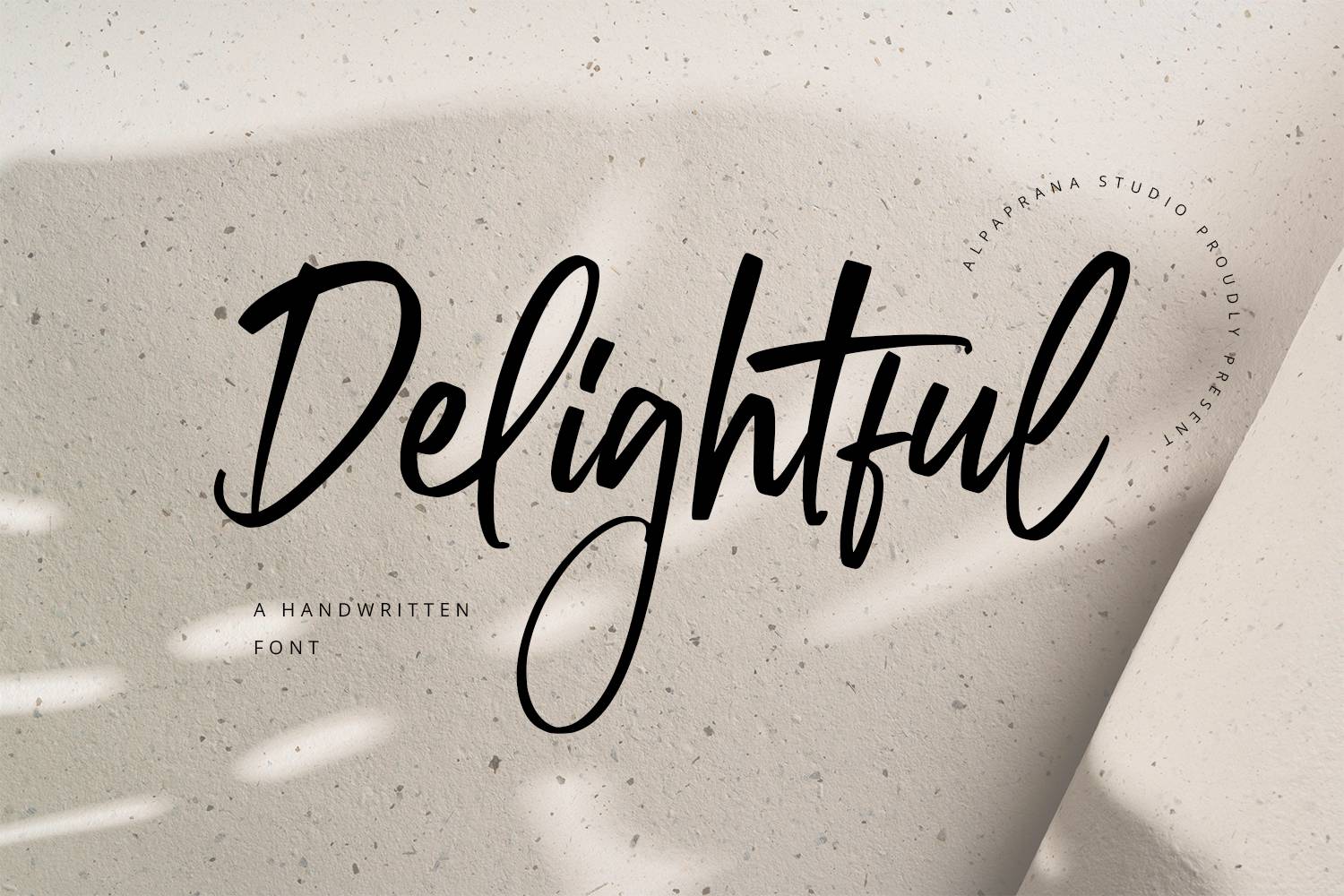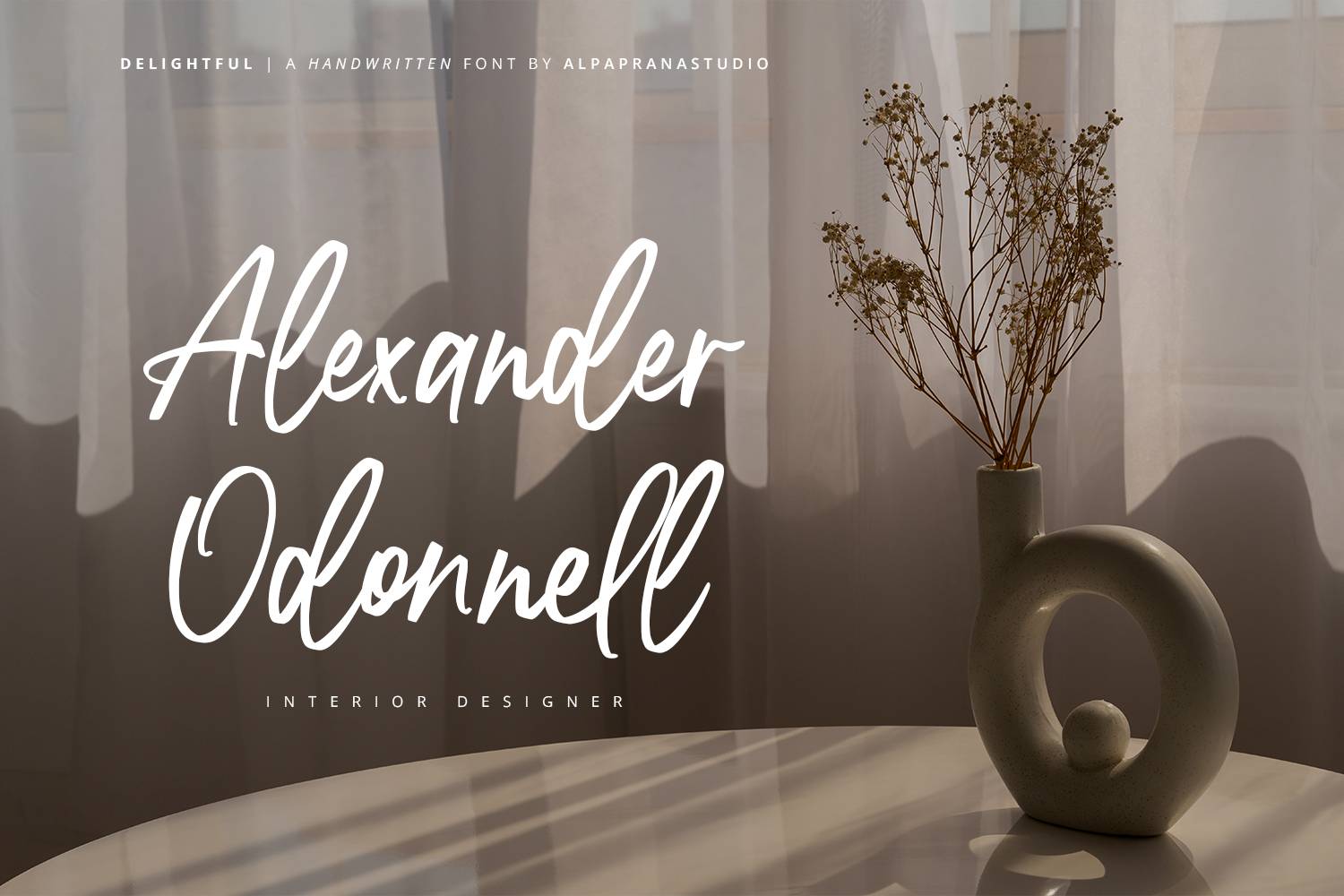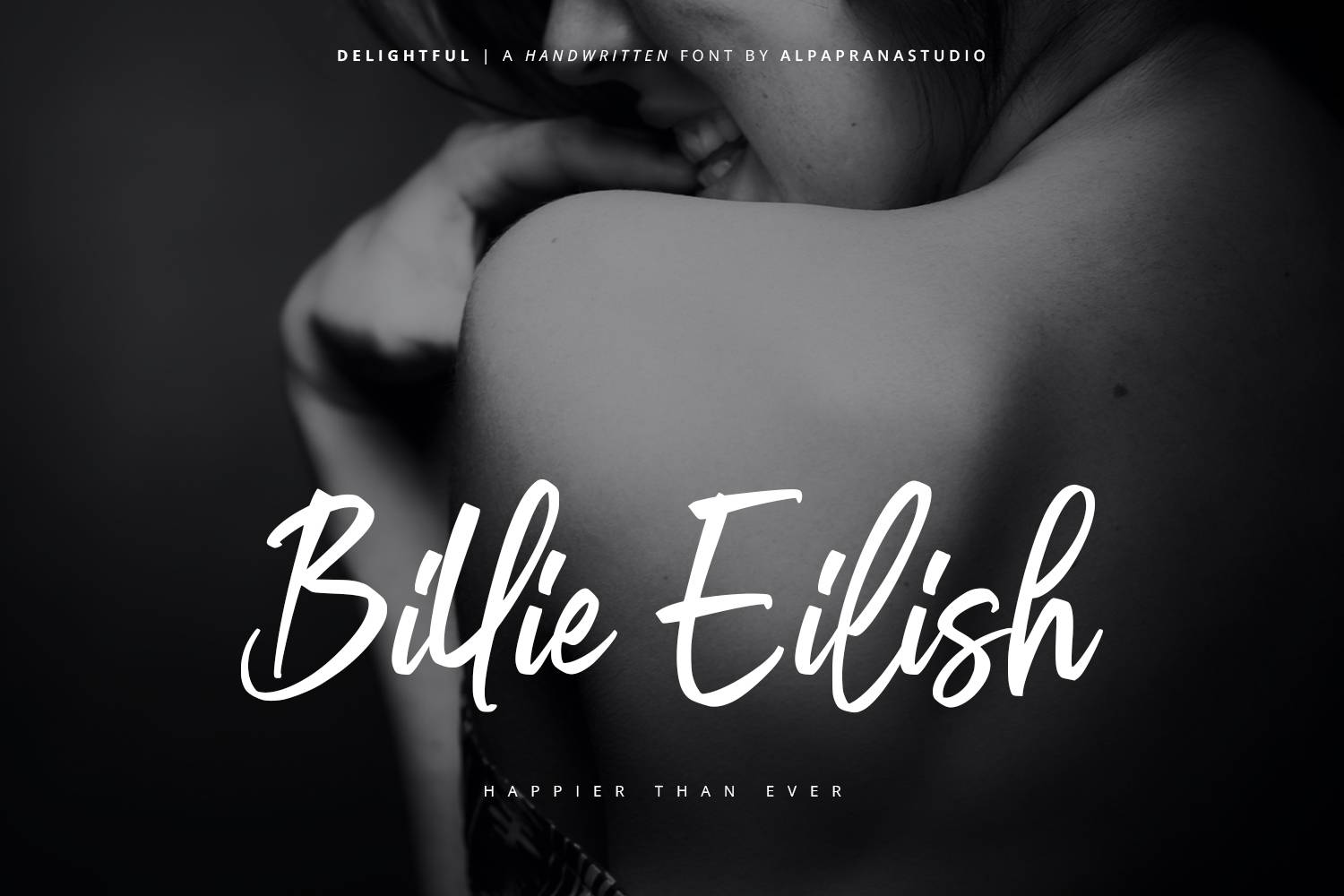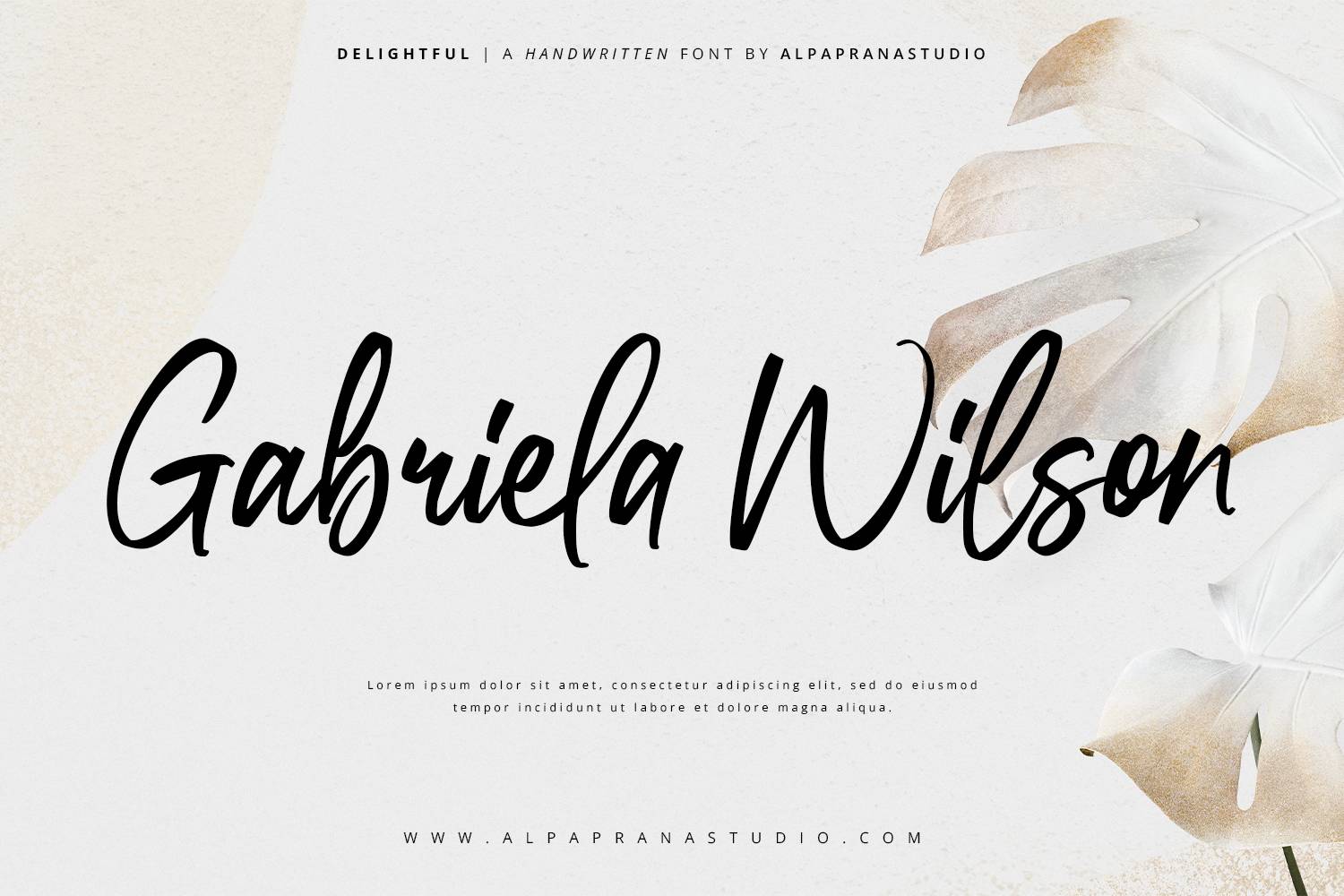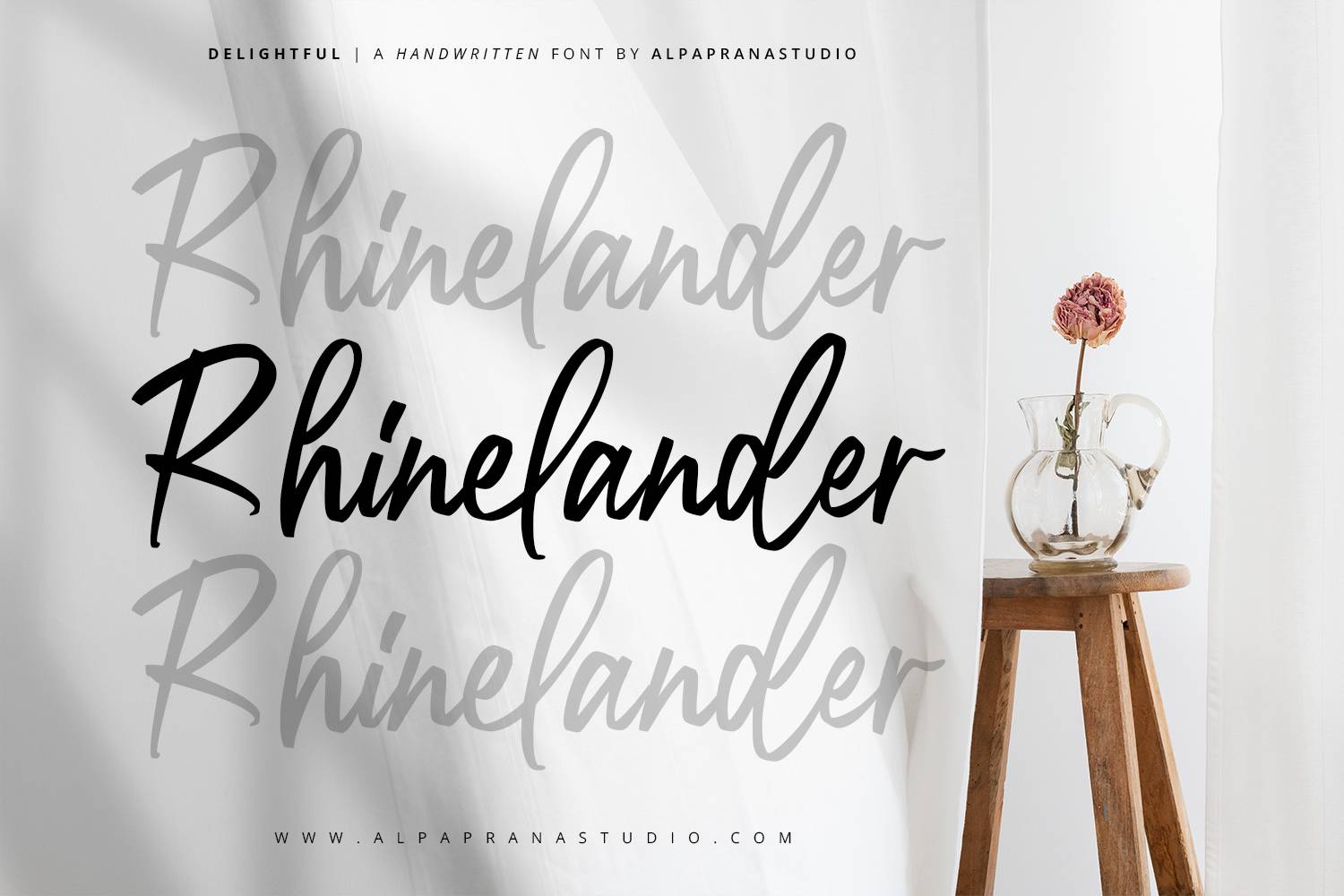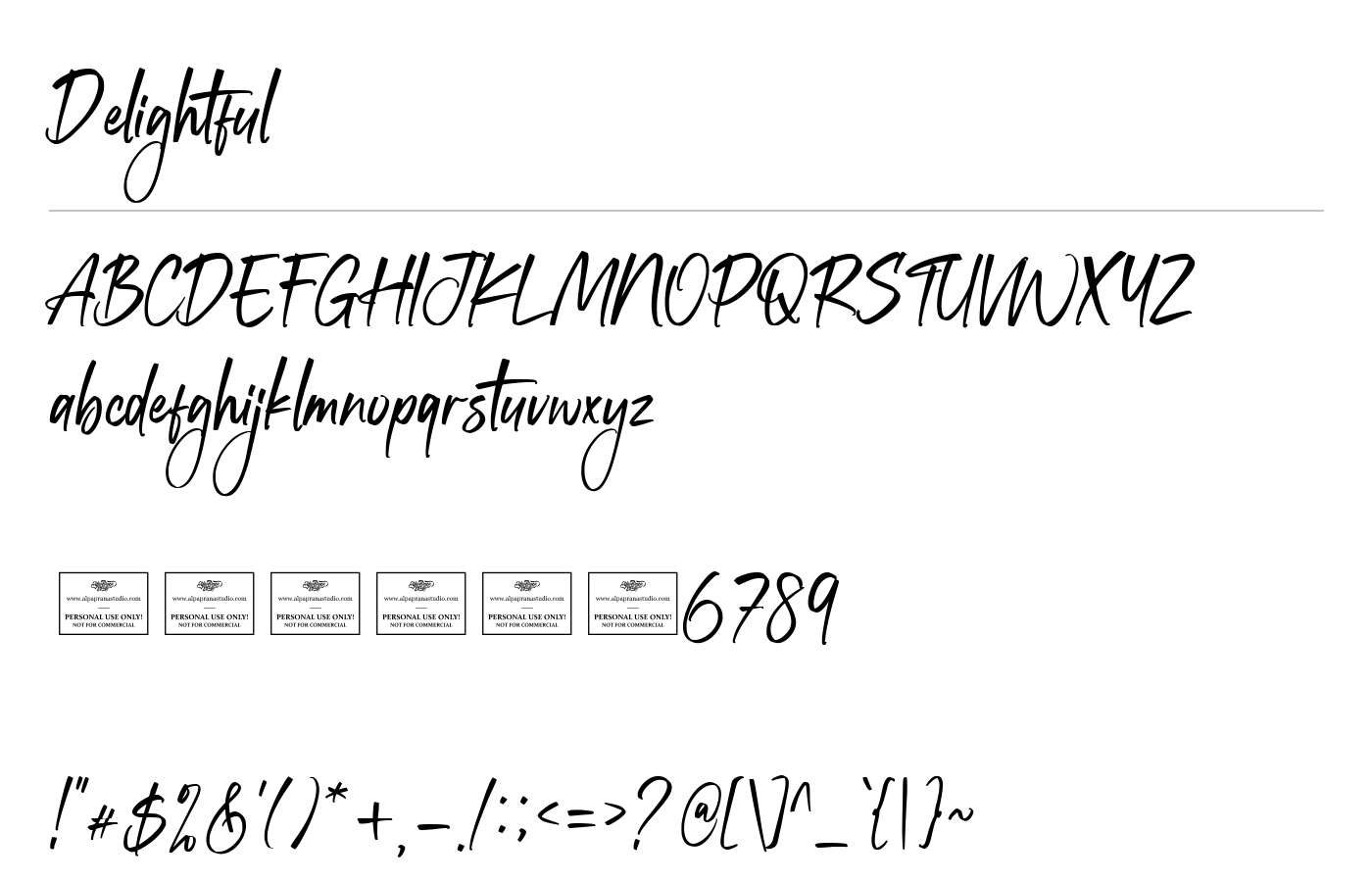
Delightful Font is a lively and elegant script typeface with a hand-drawn, casual feel. Its tall, slender letterforms and smooth, flowing strokes create a charming and personal touch, making it perfect for invitations, branding, and creative projects that seek a friendly yet sophisticated style. This font works well in both headlines and short texts where a warm, approachable vibe is desired.
Delightful Font
About Delightful Font